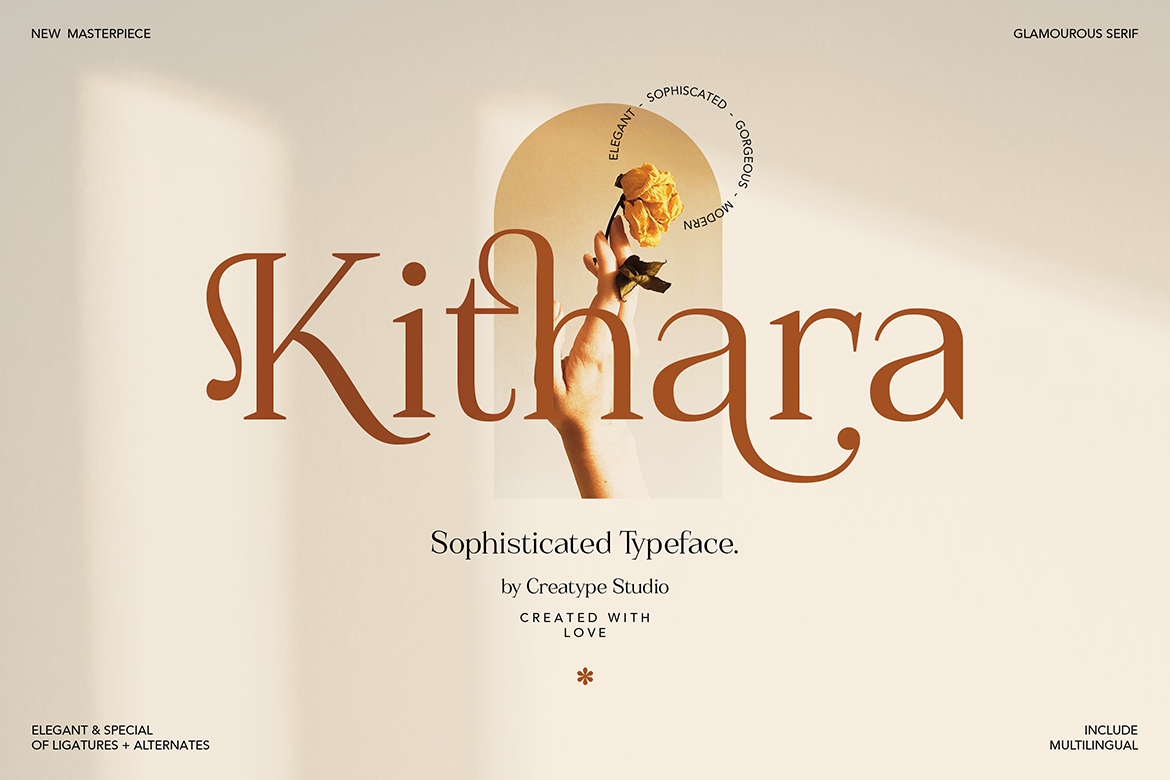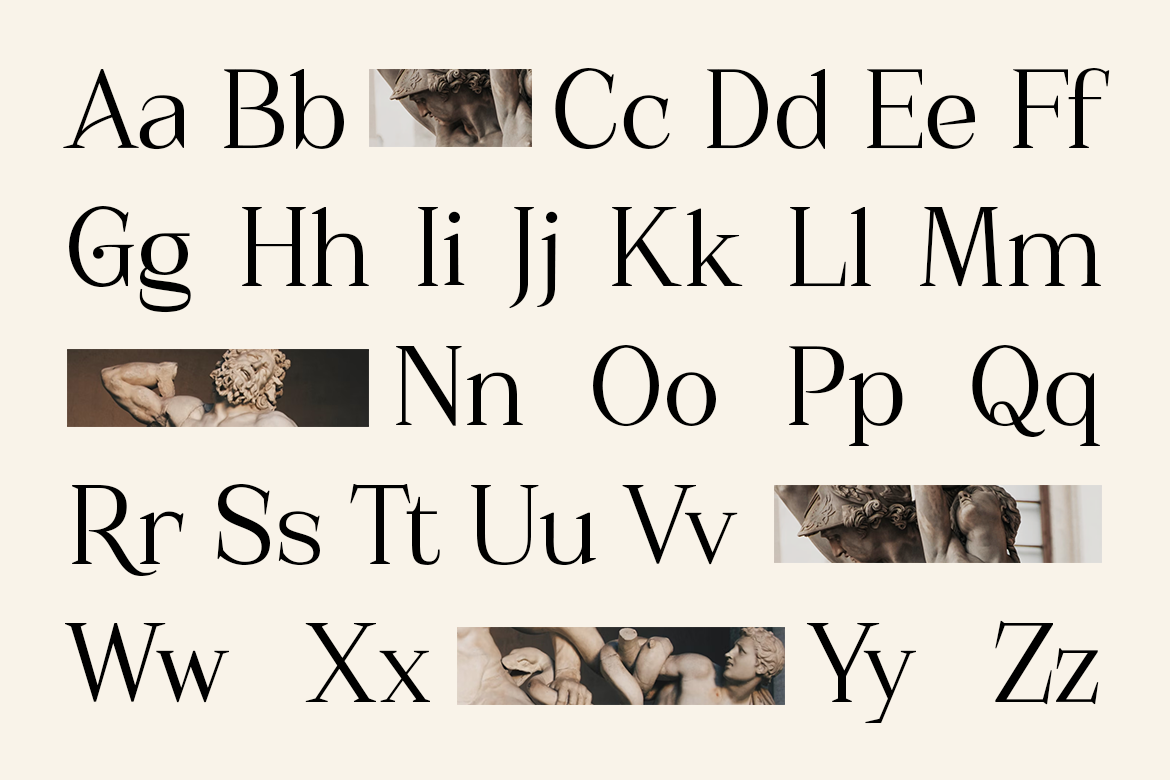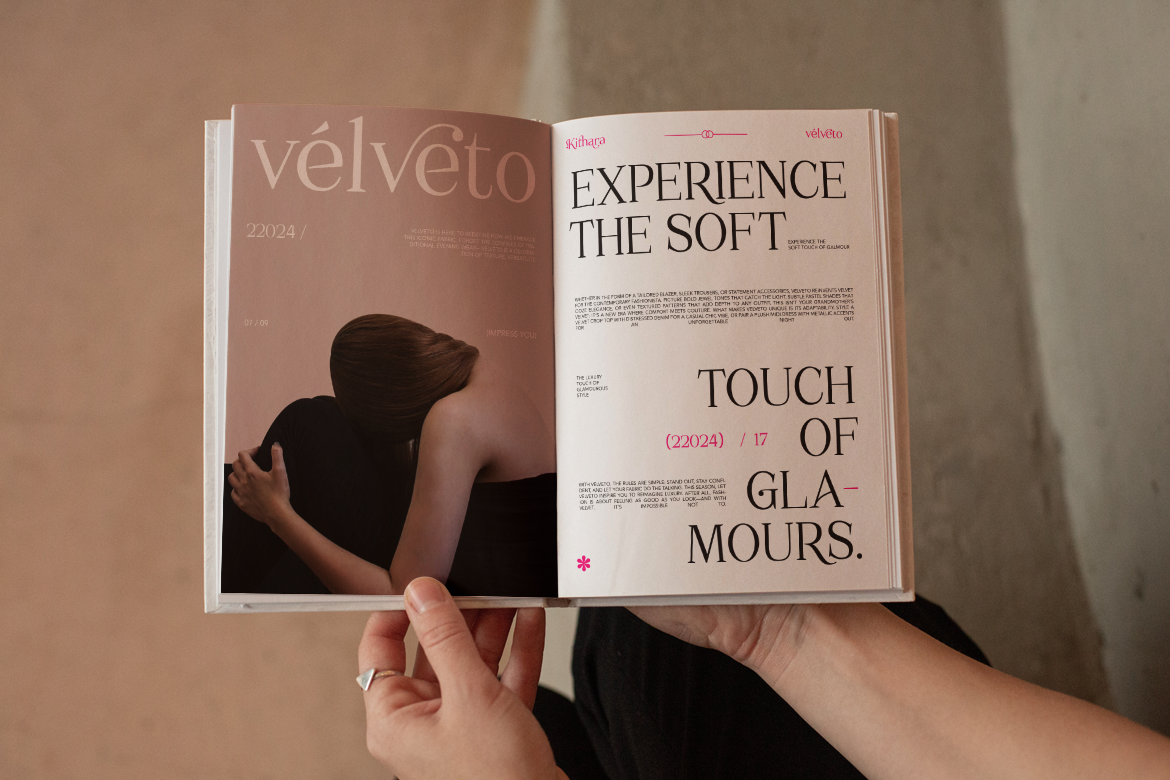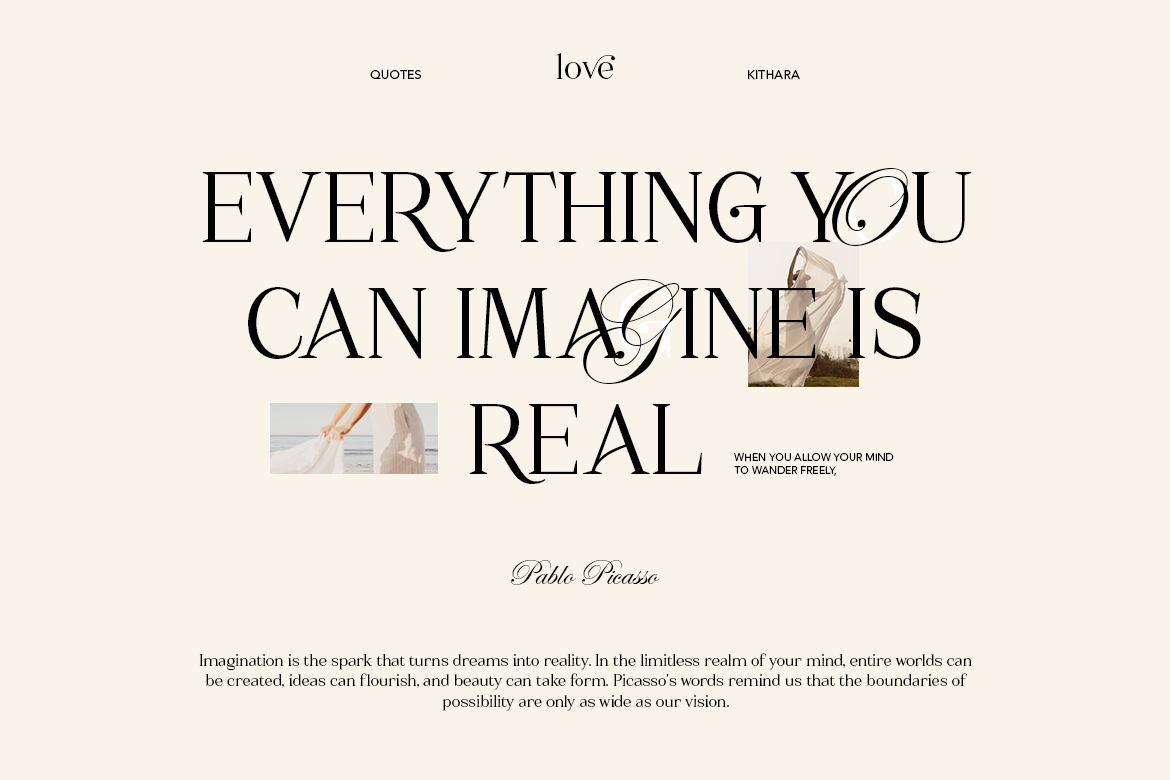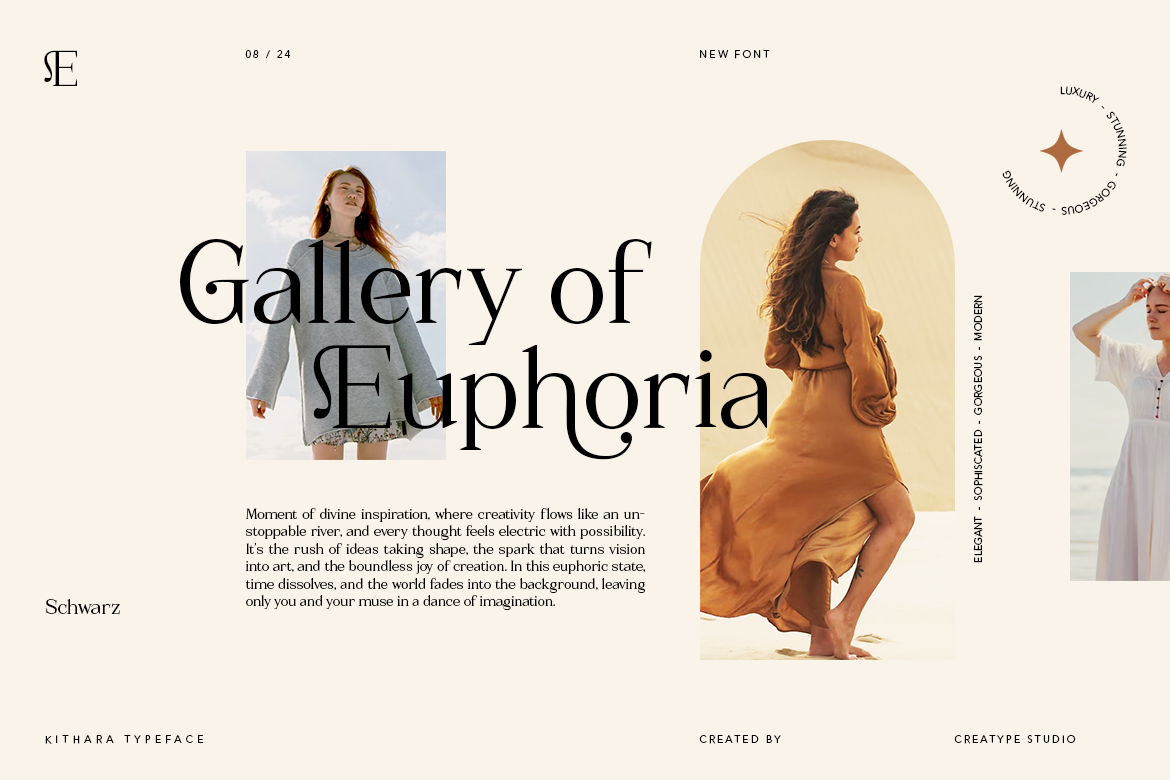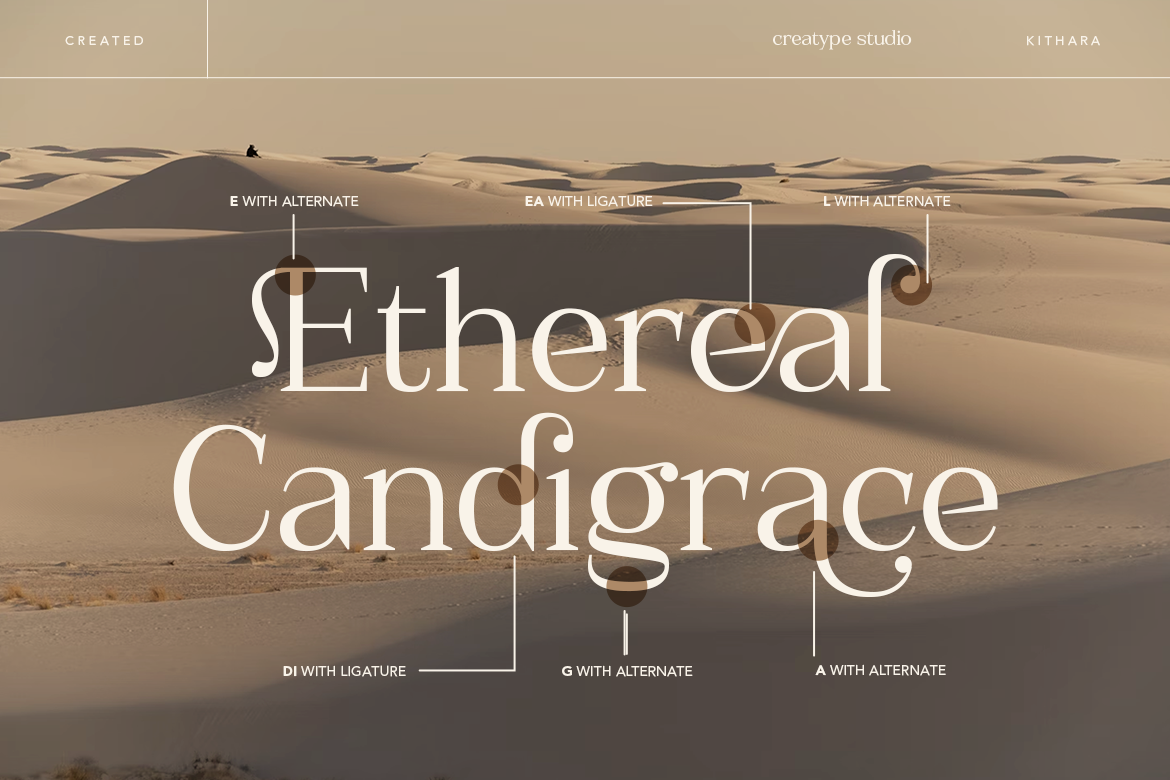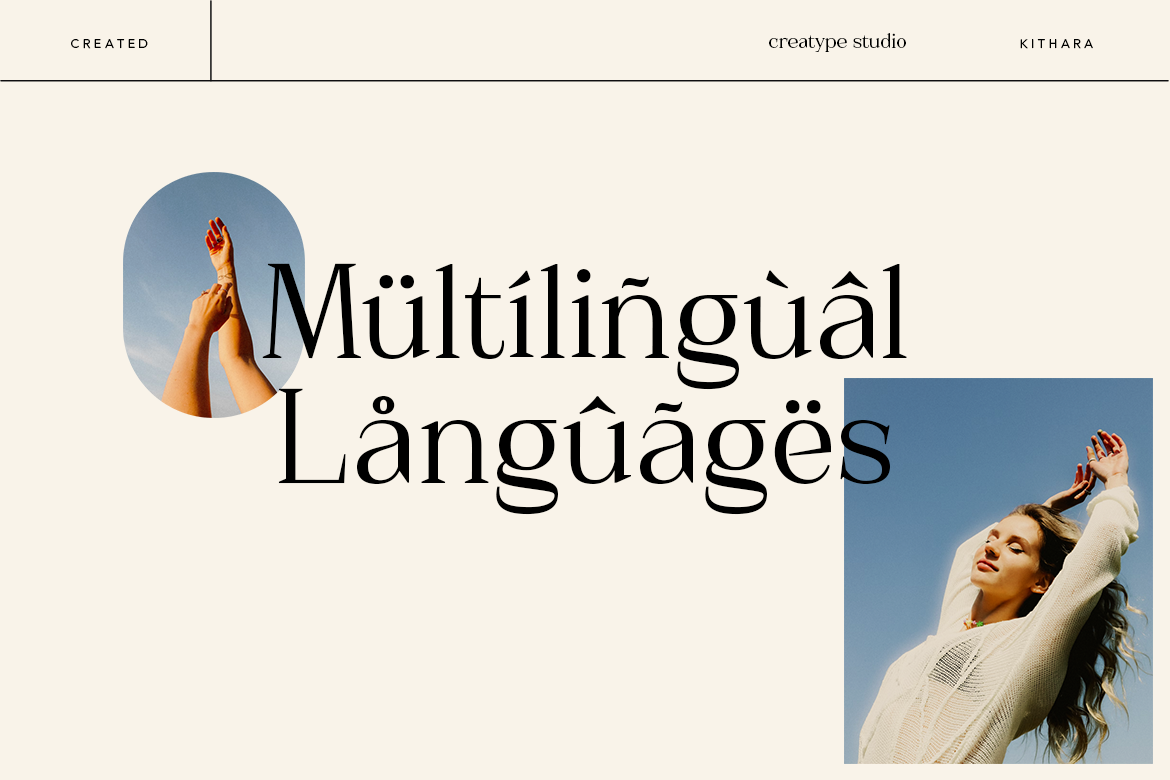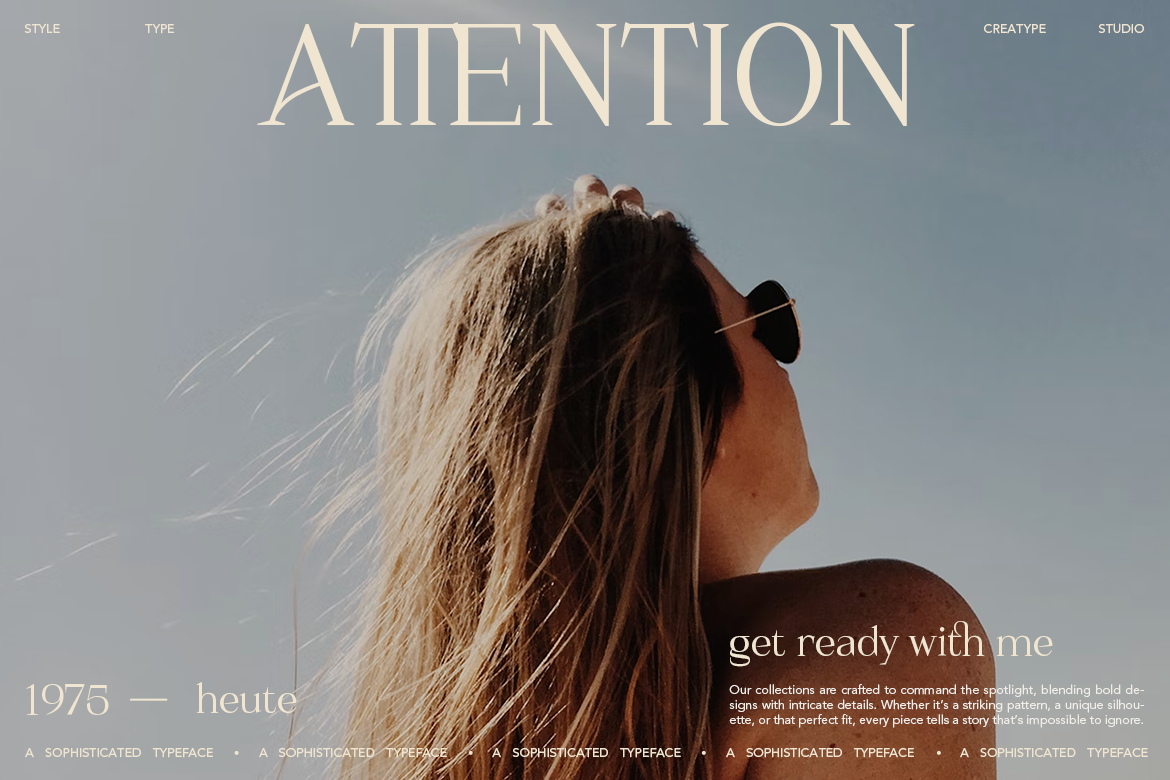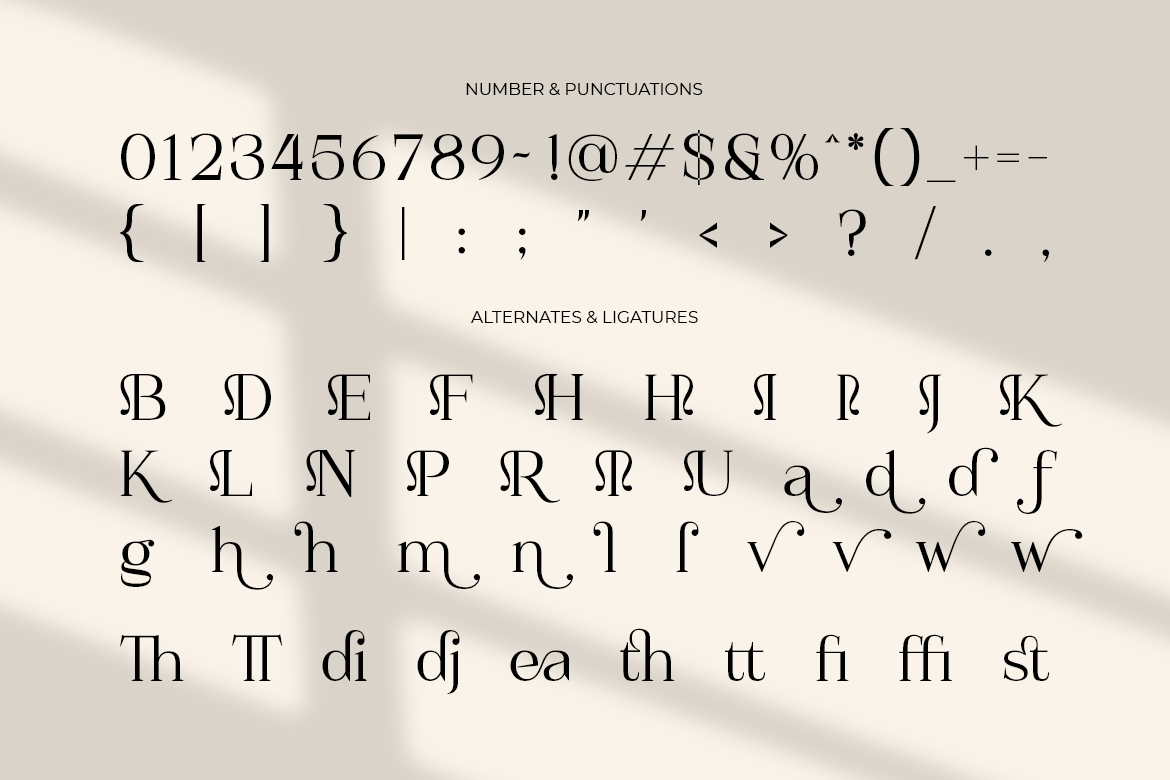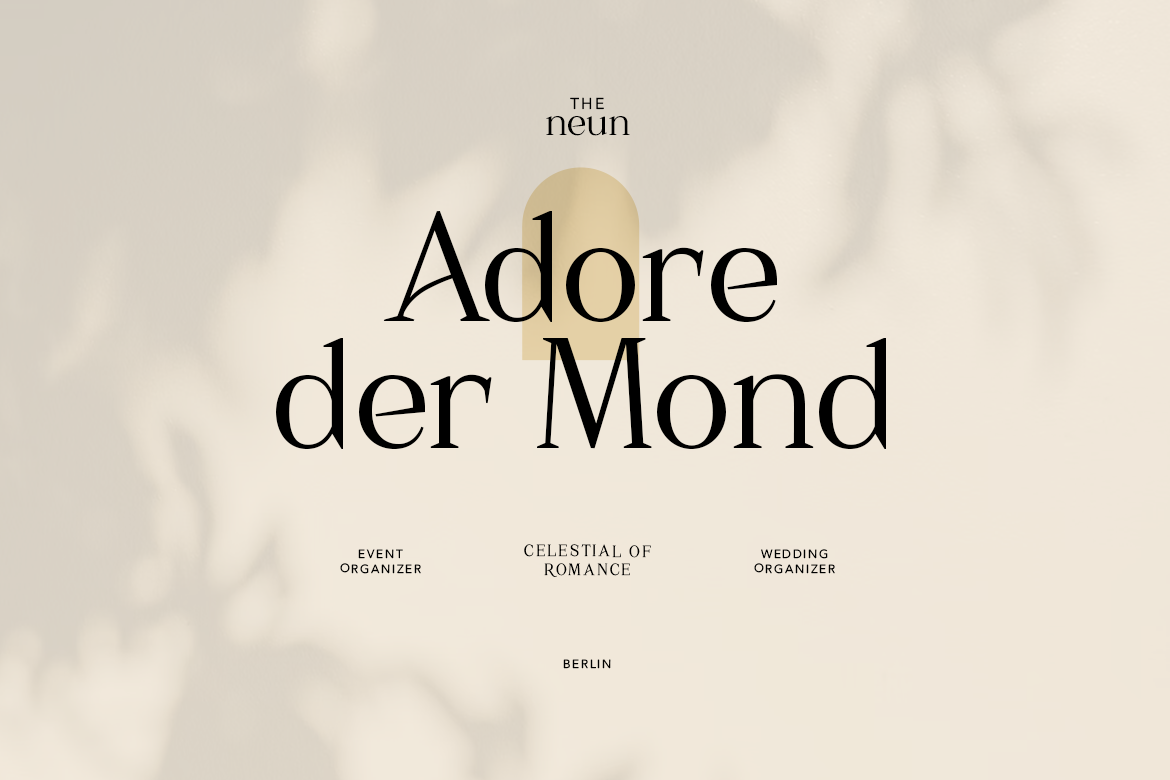
Introducing Kithara: A Sophisticated and Elegant Serif Typeface
Kithara Sophisticated Serif embodies timeless elegance and modern sophistication. This glamorous serif font, adorned with unique ligatures and alternates, adds a touch of refinement to every design it graces. Whether you’re working on luxury branding, editorial layouts, wedding invitations, or high-end packaging, Kithara will elevate your creative projects to the next level.
Designed with meticulous attention to detail, Kithara effortlessly balances beauty and functionality, making it versatile for both digital and print applications. Its distinct letterforms, and graceful curves bring an unmatched level of elegance to your designs.
- Ligature, Alternate & Swashes
Kithara Sophisticated Serif